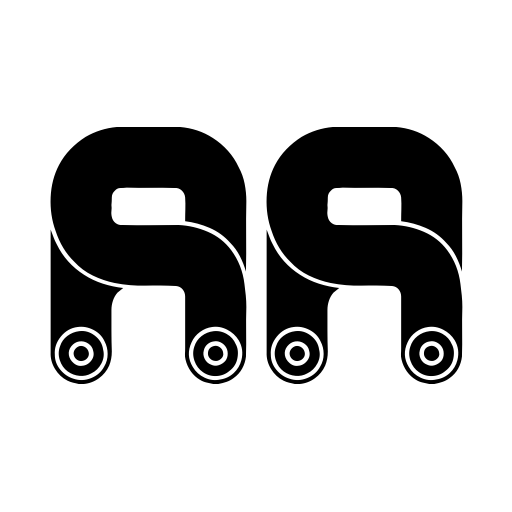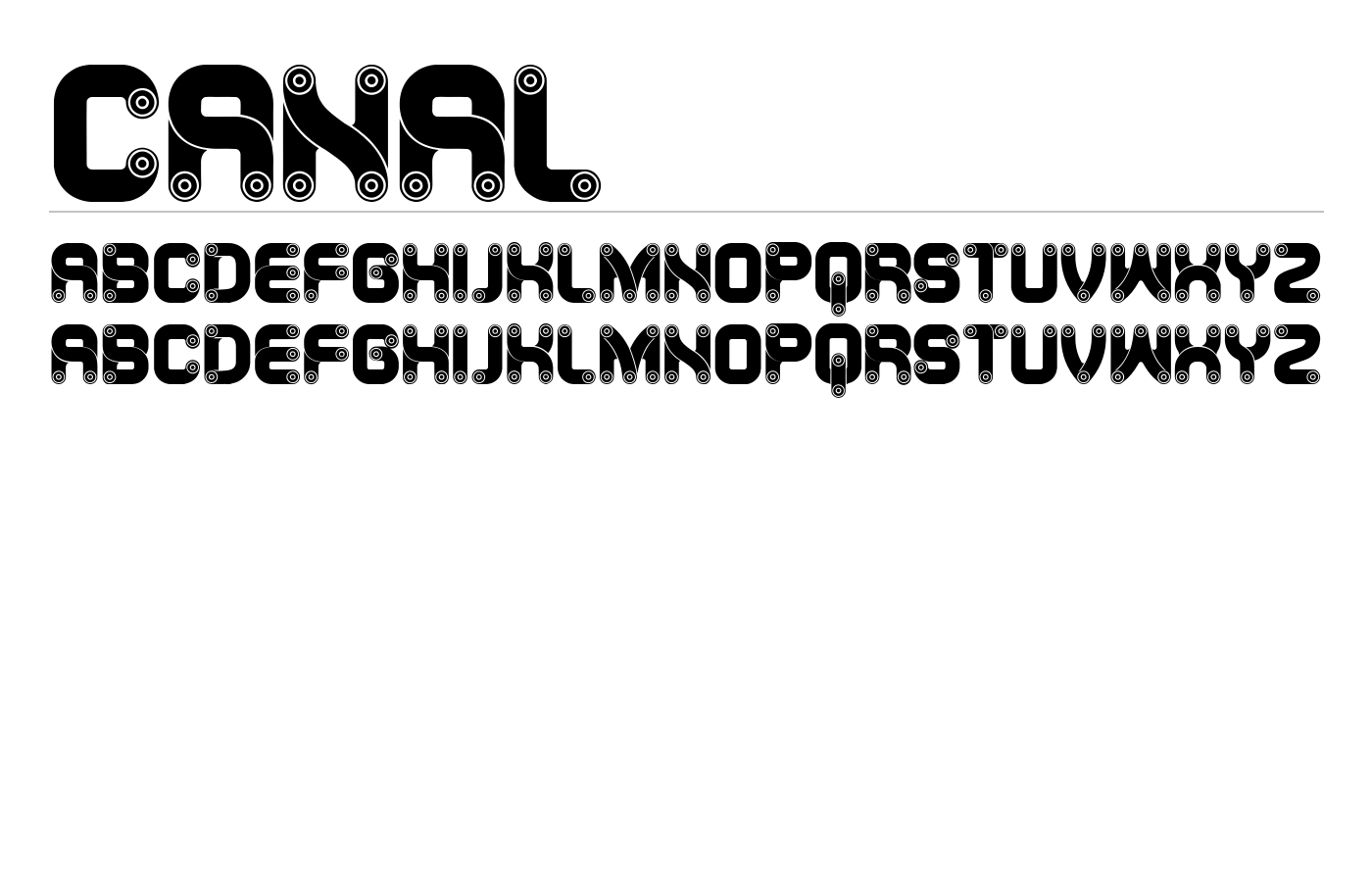
Canal Font is a bold, geometric sans serif typeface with a playful, mechanical vibe created by its rounded corners and distinctive circular accents at stroke terminals. Its heavy weight and condensed structure make it stand out, while the unique stylized details give it a futuristic and tech-inspired personality, perfect for eye-catching logos and creative branding projects. This font works well where a modern and quirky look is desired, adding a sense of innovation and fun to headlines, posters, and packaging.
Canal Font
About Canal Font